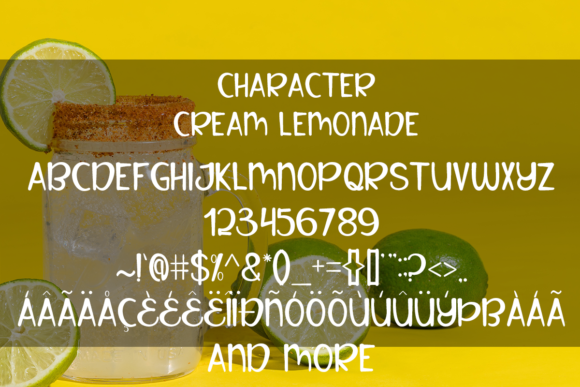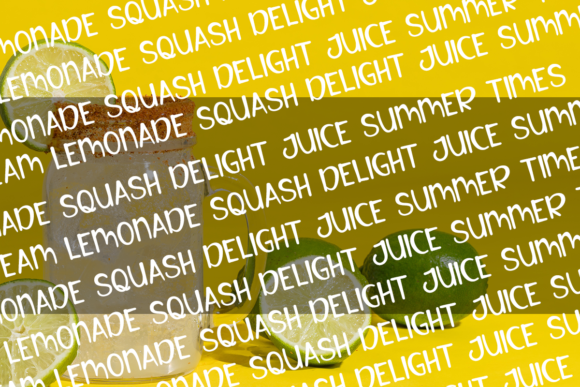
Cream Lemonade Font
db-ku.com - Script & Handwritten -- Cream Lemonade is a cool and readable handwritten font. Whatever the topic, this font will be a wonderful asset to your font library, as it has the potential to enhance any creation.